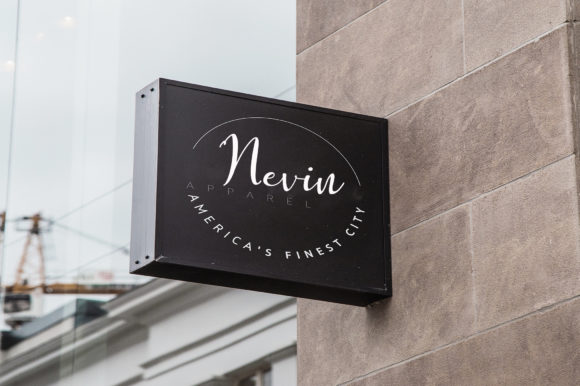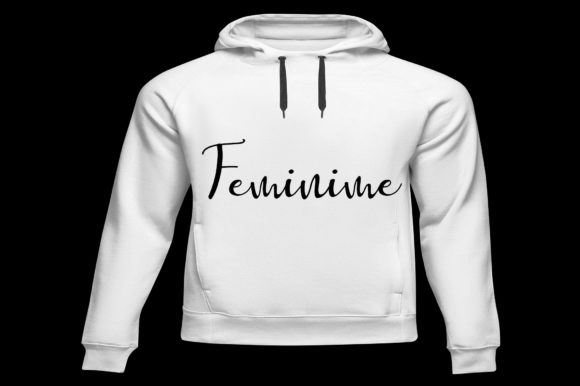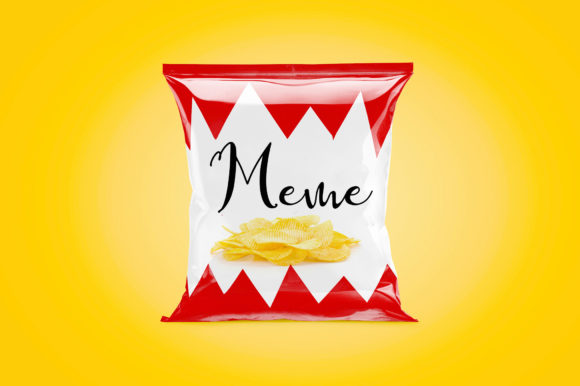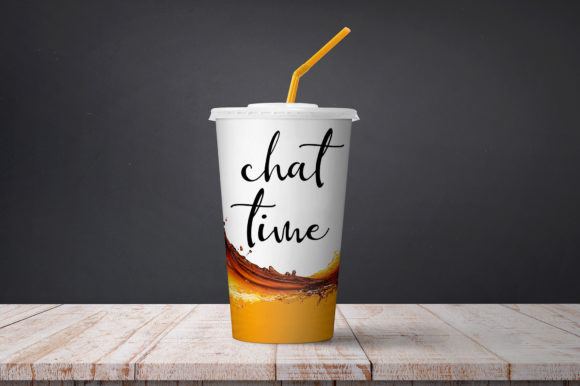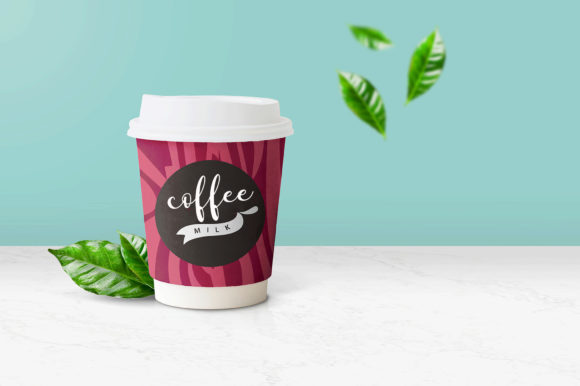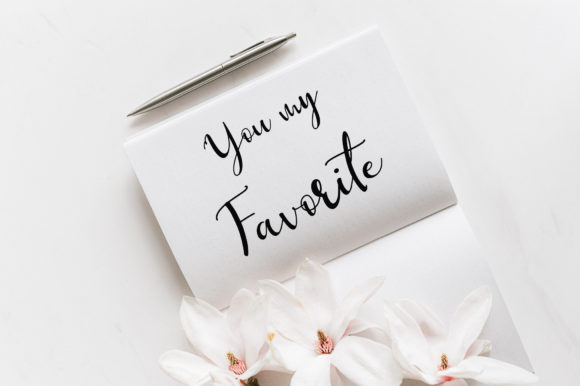
Introduction to Piglatte Font
Have you ever found yourself scribbling down a heartfelt message on a birthday card, only to wish you had the perfect font to match the occasion? That’s where the Piglatte Font comes in – a beautiful, handwritten script font that adds a touch of elegance to any design.
As designers, we’re always on the lookout for the perfect design resource to elevate our creative projects. And let’s be honest, there’s nothing quite like the feeling of adding a high-quality font to our designs and watching them come to life. With its classic calligraphy style and smooth, flowing lines, the Piglatte Font is a valuable addition to any designer’s toolkit.
Key Features of Piglatte Font
- It features a unique, hand-drawn style with a transparent background, allowing for seamless integration into various design elements.
- Piglatte Font boasts a total of 6 styles, including bold, regular, and italic variations, providing ample options for creative expression.
- Piglatte Font is designed to be highly versatile, making it suitable for a wide range of creative projects, from logos and branding to digital art and print materials.
- The font’s unique characteristics, including its organic feel and expressive flair, make it an excellent choice for designers seeking to add a personal touch to their work.
Honest Review: Piglatte Font
I recently had the chance to work with the Piglatte Font, and I must say it’s been a great addition to my design resource library. This font is perfect for those creative projects that require a touch of elegance and sophistication.
One of the things I love about the Piglatte Font is its high quality design. The font is well-crafted and looks great on a variety of backgrounds. I especially appreciate the option to download it with a transparent background, which makes it easy to use in creative projects.
- ✨ High-quality design that looks great on various backgrounds
- ✨ Compatible with a range of creative projects
- ⚠️ Limited character set, which may not be suitable for extensive text-based projects
- ⚠️ Not as versatile as some other fonts, which may limit its use in certain creative projects
Overall, I’m impressed with the Piglatte Font. It’s a great addition to any designer’s library, and I would definitely recommend it for those looking for a high-quality, elegant font.
- Combine the Piglatte Font with other design elements to add depth and interest to your project.
The Piglatte Font is perfect for a range of creative projects, including:
- Print materials
Can I customize the Piglatte Font for my specific design project?
While the Piglatte Font is a high-quality, pre-designed font, you can customize its appearance to fit your specific design project. You can adjust the font size, color, and spacing to match your project’s requirements. However, if you need to make significant modifications to the font’s design, you may want to consider hiring a professional font designer or using a font editor to make the necessary changes.